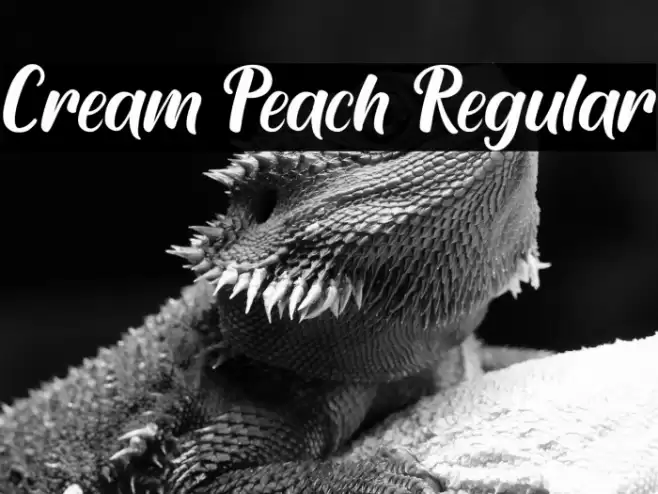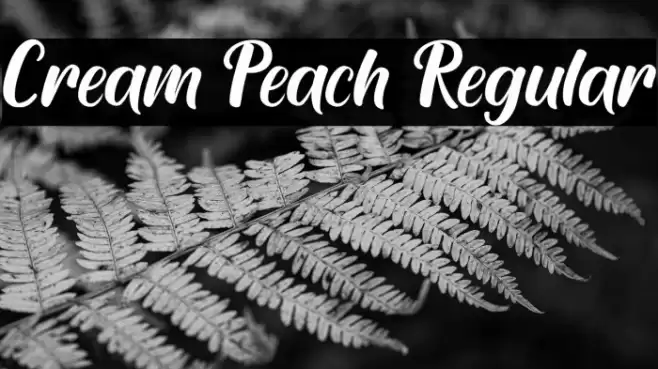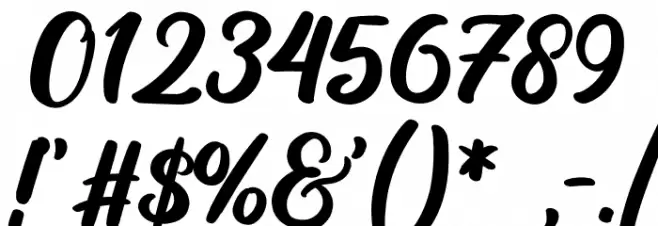
Cream Peach Regular Font
Cream Peach Regular Description
This font features a bold and flowing script style, characterized by its smooth, connected strokes and elegant curves. The uppercase letters are slightly more formal, with a consistent slant and rounded edges, while the lowercase letters maintain a casual, handwritten feel. The numerals are bold and clear, matching the overall aesthetic of the font. Special characters are well-integrated, maintaining the same fluidity and style. This font exudes a sense of warmth and friendliness, making it suitable for a variety of creative applications.
A bold, flowing script font with elegant curves and a friendly style from Regular fonts.
- Proposed Projects: Ideal for wedding invitations, greeting cards, branding, and social media graphics.
- Use Case: Logos, Invitations, Headlines